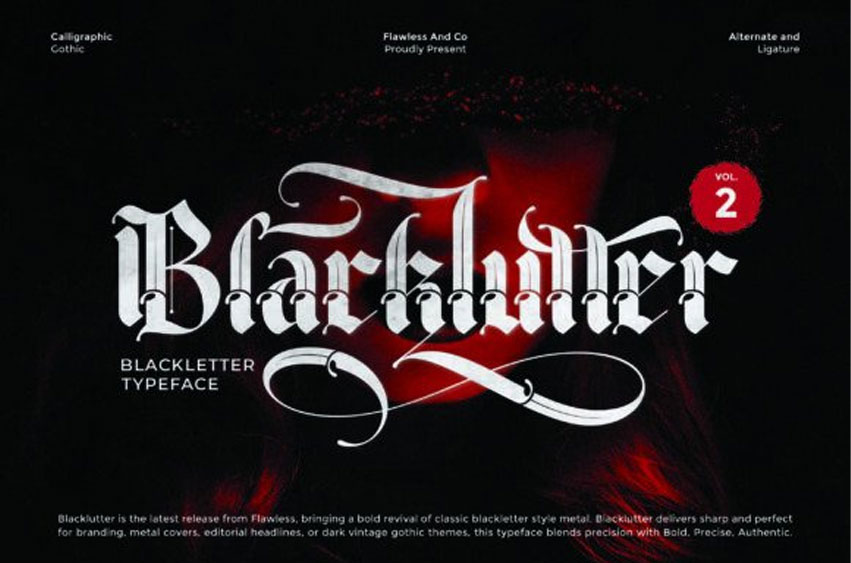
Blacklutter Vol2 Font
Blacklutter Vol2 Font is a bold and powerful blackletter typeface that combines traditional Gothic style with a modern touch.
Its sharp edges, dramatic strokes, and distinctive letterforms make it perfect for designs that demand strength, authority, and style.
This typeface is ideal for branding, logos, posters, merchandise, album covers, tattoo lettering, and more.
The Blacklutter Vol2 font is also PUA-encoded, ensuring effortless access to all glyphs, swashes, and alternate characters to help you customize your creations with ease.